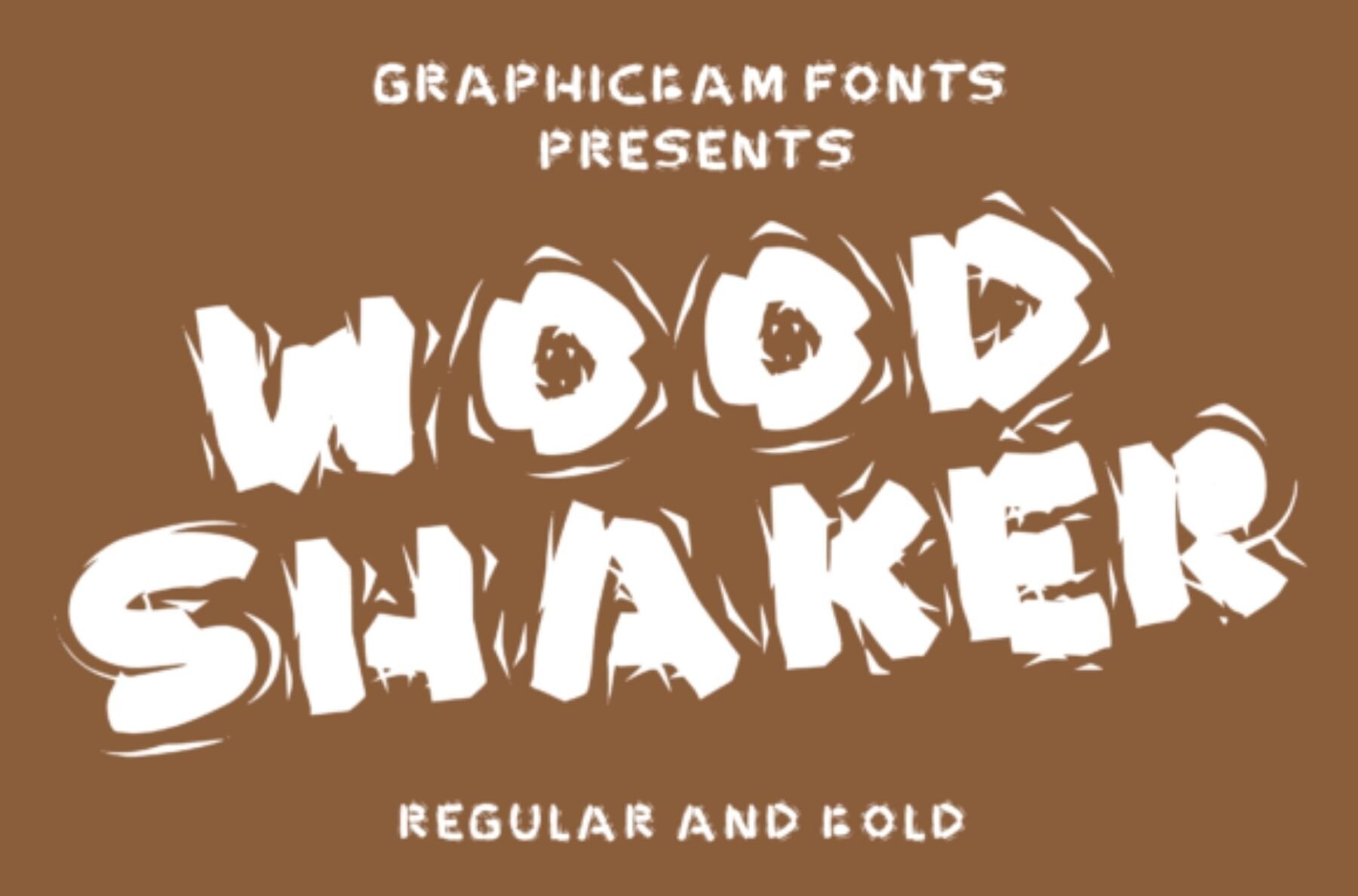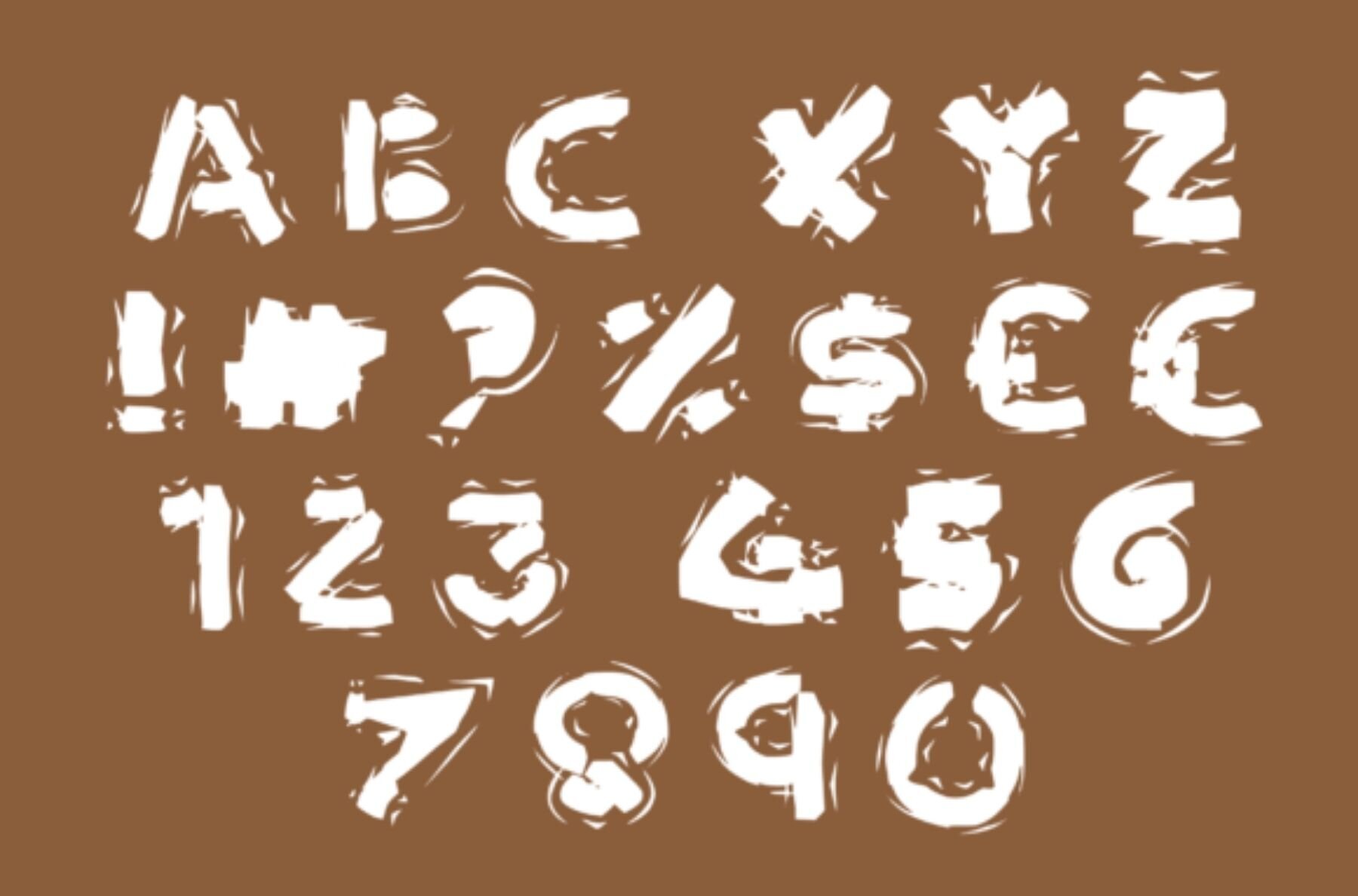
Wood Shaker Font
Introducing Wood Shaker, a captivating wood-inspired display font that brings a playful charm to your design projects. With its enchanting cartoon effect, this font adds a delightful retro flair, making it an excellent choice for cartoon-related designs, children's games, and more. Its unique style is perfect for titles, quotes, brand names, or any creation seeking a hint of retro beauty.Wood Shaker: A Whimsical Retro Display Font